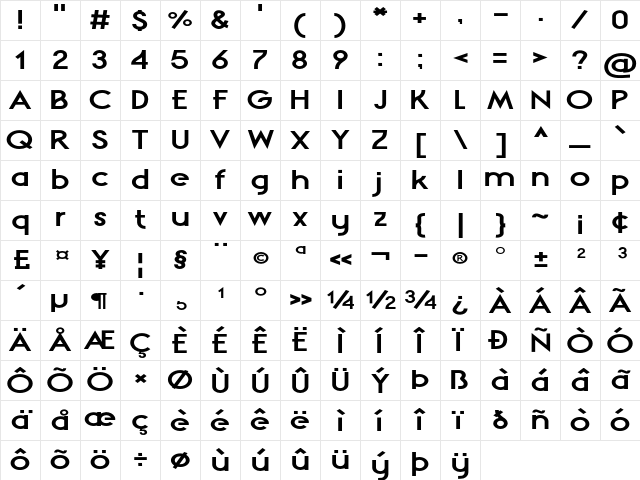
Feredon Expanded Regular Free Font
Feredon Expanded Regular
Style: Expanded Regular
Feredon Family
Feredon Expanded Regular
Complete Feredon Expanded Regular glyph index. Displaying only characters natively supported by Feredon Expanded Regular font.
Design Context for Feredon
Feredon is a composed and adaptable typeface that performs quietly and consistently across a wide range of design contexts.